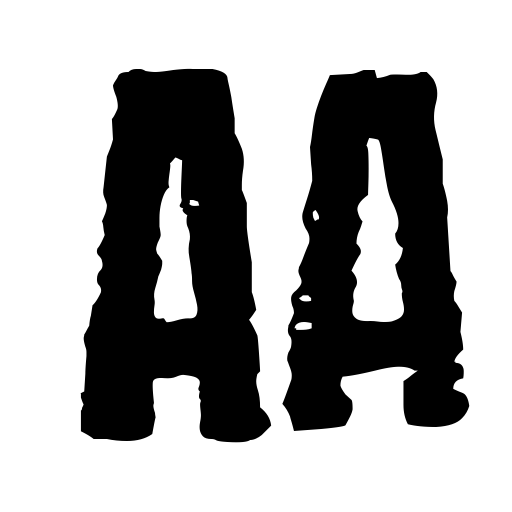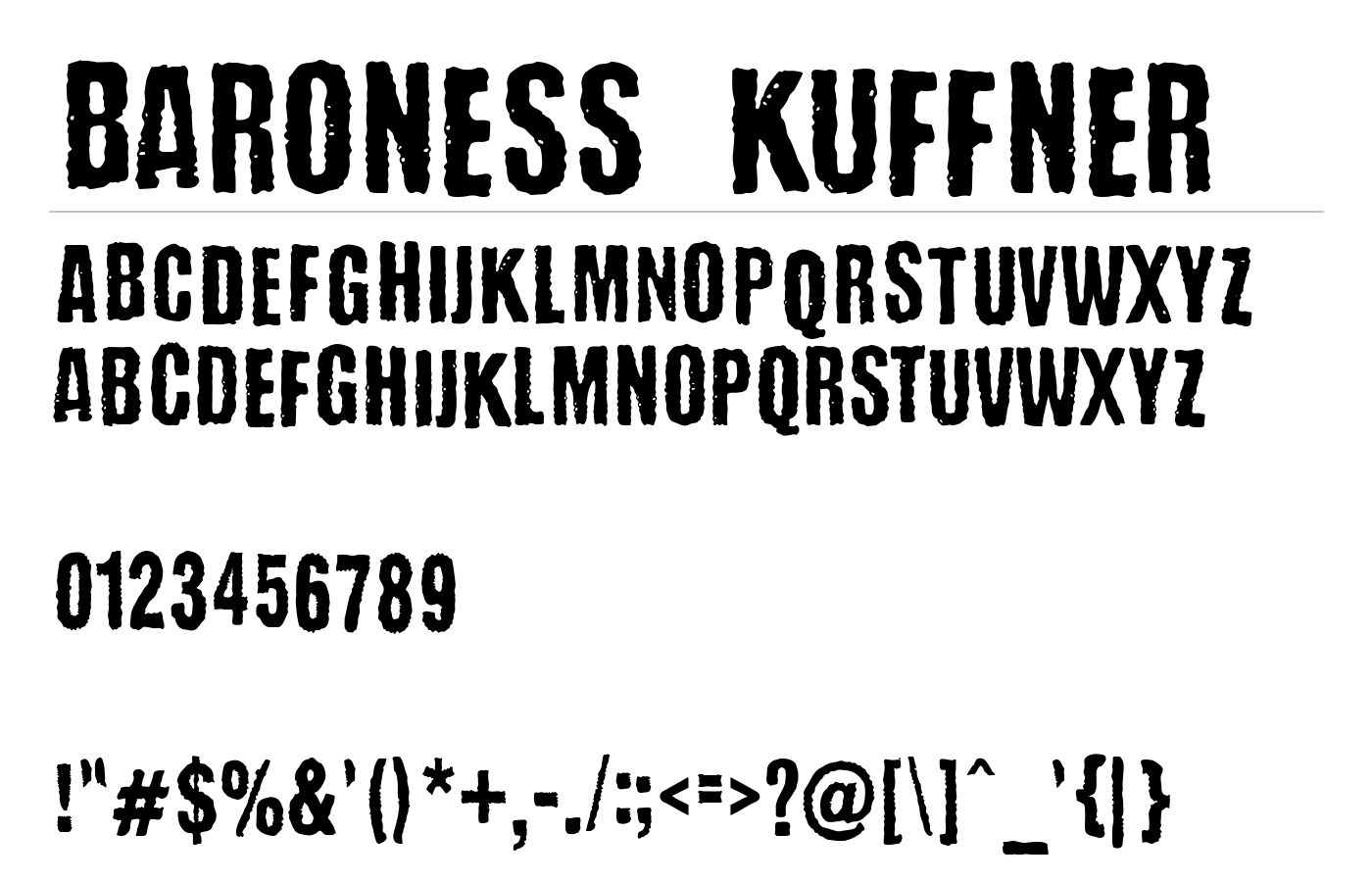
Baroness Kuffner is a bold, condensed sans serif font with a textured, distressed look that brings a rugged, vintage character to the design. Its tall, narrow letterforms with uneven edges create a strong, eye-catching presence, perfect for branding or headlines that need to evoke toughness and authenticity. This font works well in posters, packaging, and editorial designs where a bold statement with a handcrafted feel is desired.
Baroness Kuffner Font
About Baroness Kuffner Font